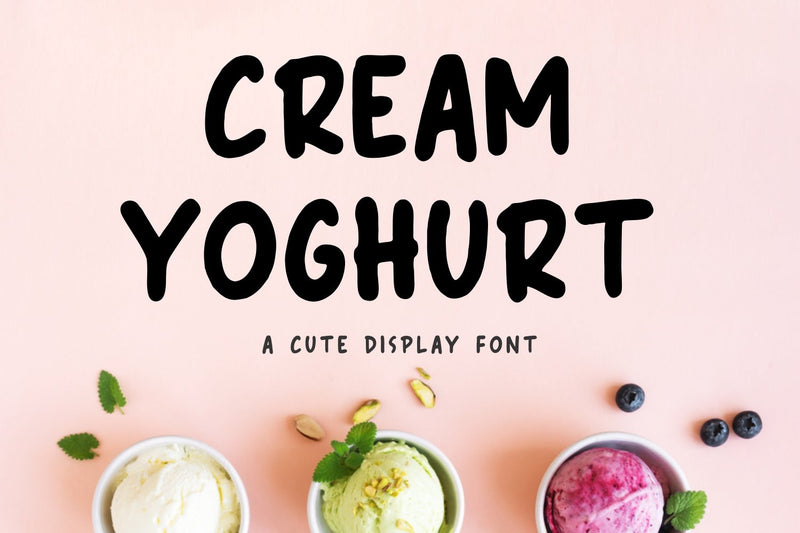
Cream Yoghurt
Proudly presenting Cream Yoghurt.
It is a fun typeface and a cute display font.
It’s perfect for cards, prints, illustrations, decorations, christmas designs, and much more! And it's would perfect for t-shirt/ apparel, promotional materials, sports, music festival, quotes, special events or anything .